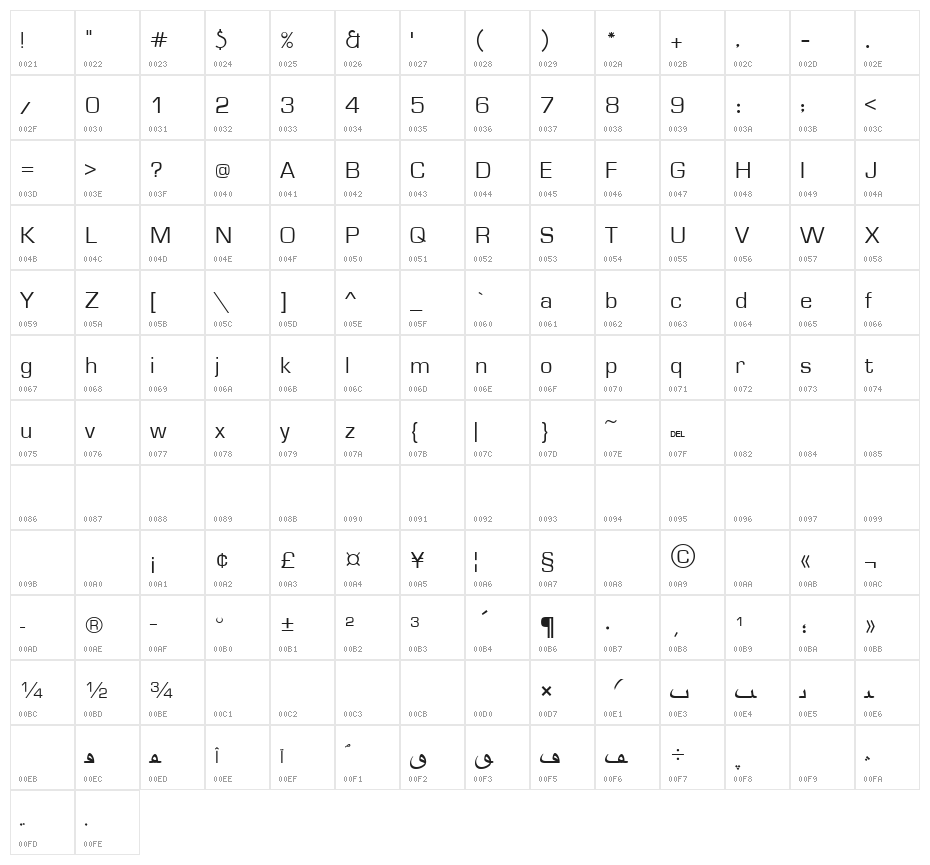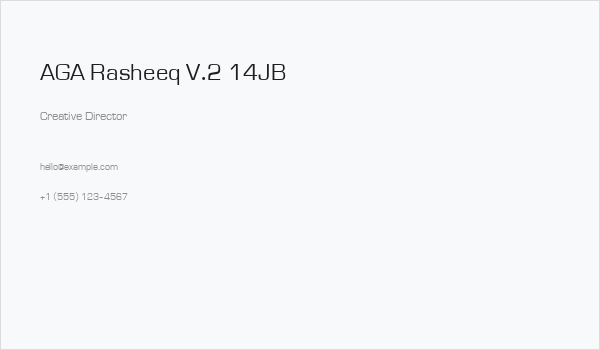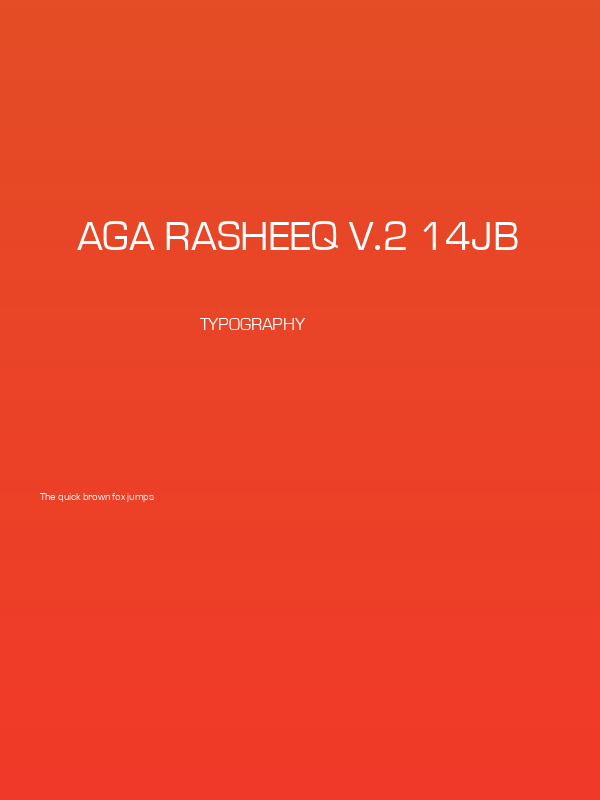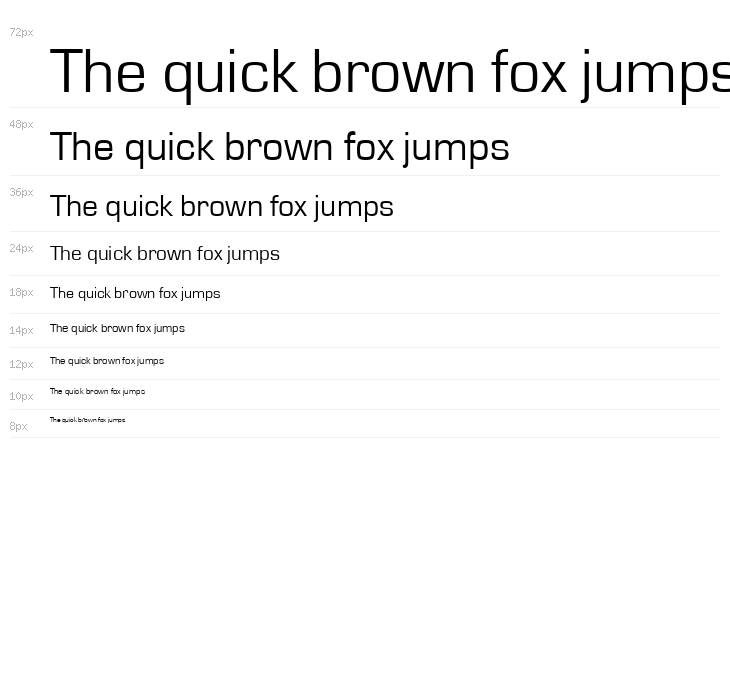
AGA Rasheeq V.2 14JB Font
AGA Rasheeq V.2 14JB Description
This font features a clean and modern sans-serif design with a geometric structure. The characters are uniform in width, providing a balanced and harmonious appearance. The uppercase letters are bold and assertive, while the lowercase letters maintain a consistent style with slightly rounded edges, adding a touch of softness. The numerals are clear and legible, making them suitable for various applications. Special characters are well-defined, ensuring versatility in different contexts. Overall, this font exudes a contemporary and professional vibe, making it ideal for digital and print media.
Proposed ProjectsIdeal for branding, web design, corporate materials, and editorial layouts.